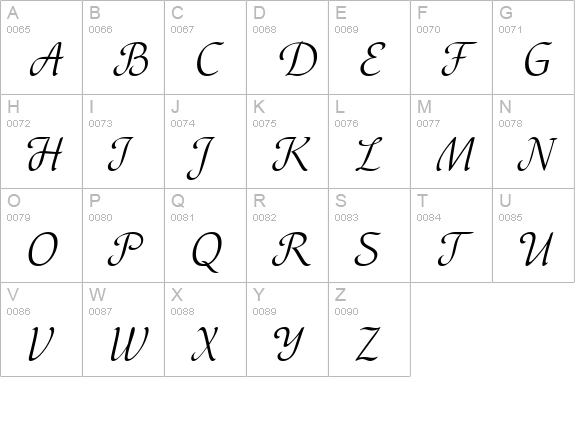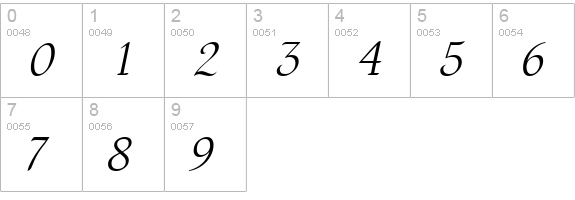
VesnaC Font Details
VesnaC font is a captivating and enchanting typeface that brings a touch of elegance to any design project. With its delicate curves and intricate details, this font exudes a sense of sophistication and style. Whether you're creating a logo, designing a website, or crafting an invitation, VesnaC font will elevate your design to new heights. What sets VesnaC font apart is not only its stunning aesthetics but also its versatility. It can be used in a variety of contexts, from headlines and titles to body text and captions. The extensive character set of VesnaC font ensures that you'll have all the letters, numbers, and symbols you need to create visually appealing and cohesive designs. One of the best features of VesnaC font is that it is free! Yes, you read that right. This incredible font is freely available to download at FontsMarket.com. This means that you can enhance your designs without having to worry about breaking the bank. Now, you can create beautiful and professional-looking designs without spending a dime. Whether you're a professional designer or a DIY enthusiast, VesnaC font will be a valuable addition to your font library. Its timeless beauty and effortless charm make it a go-to choice for any project. So why wait? Download VesnaC font today from FontsMarket.com and let your creativity soar.